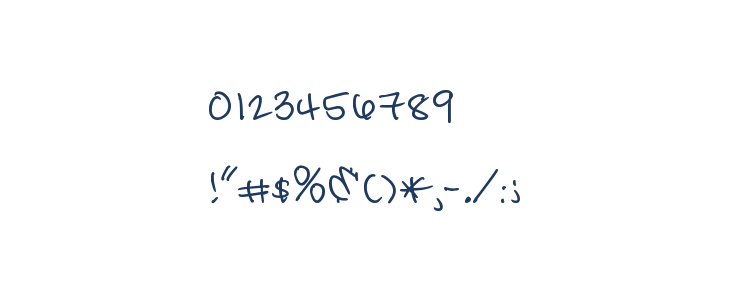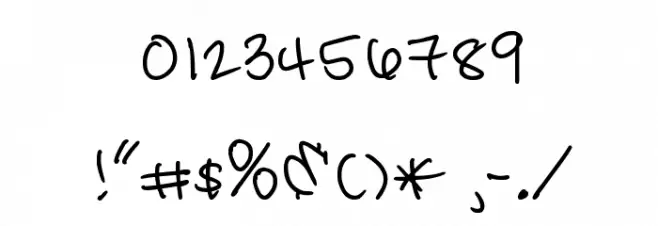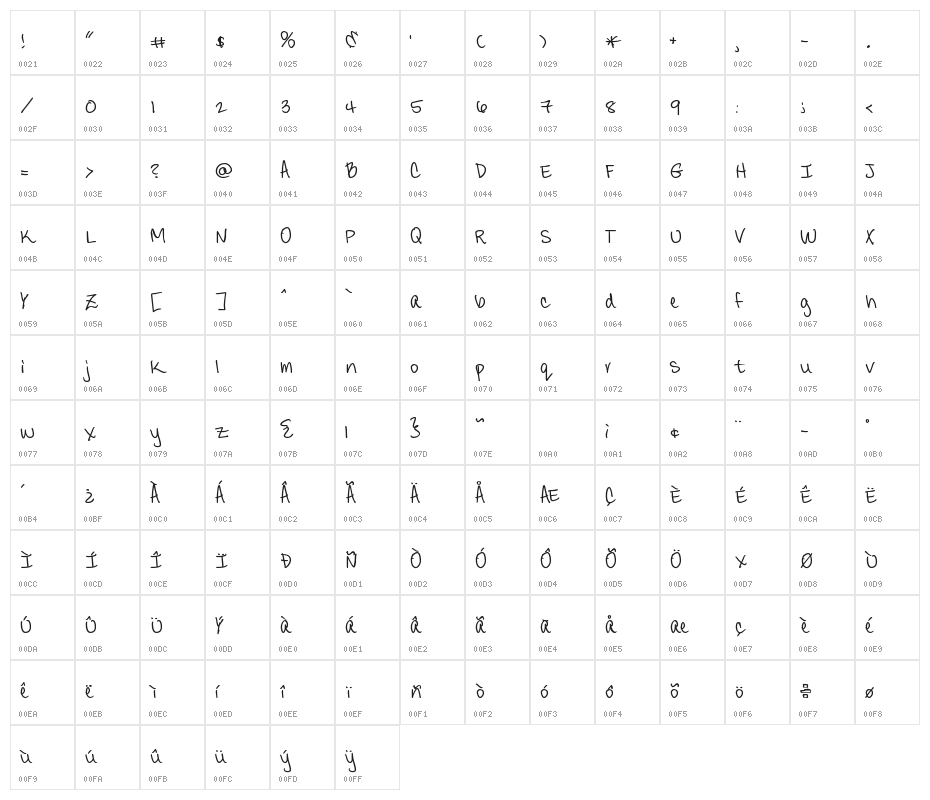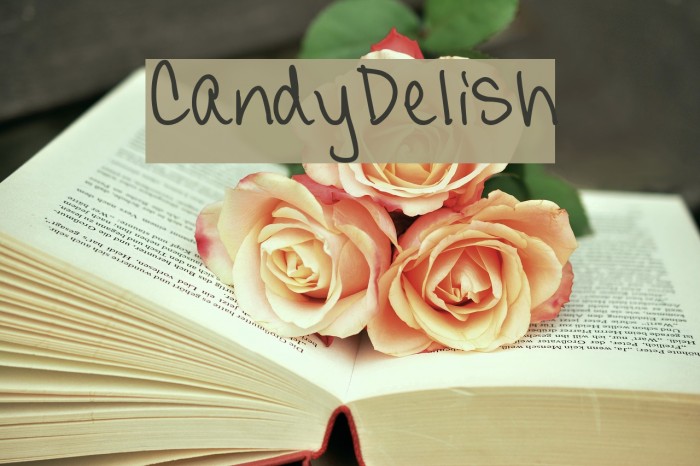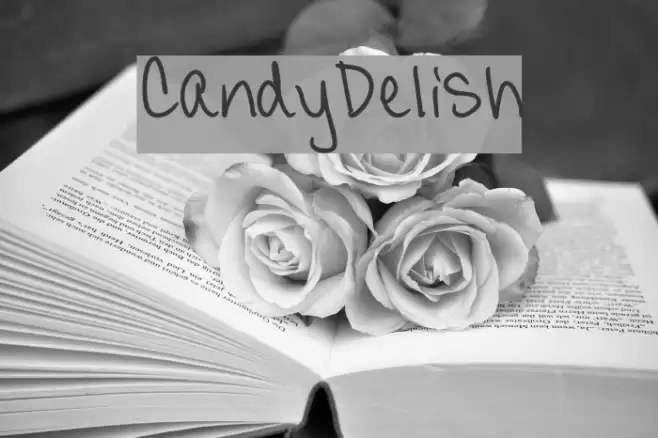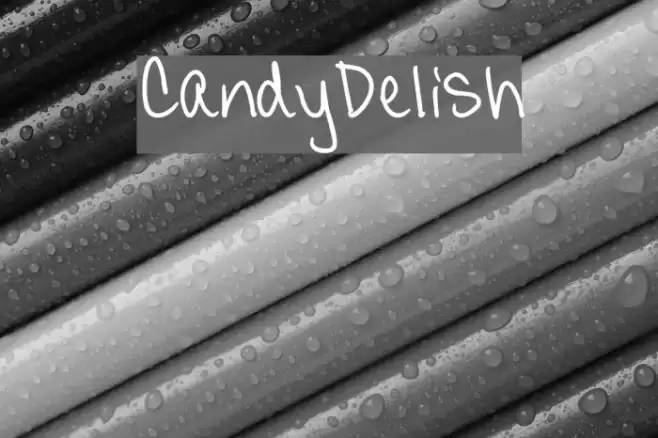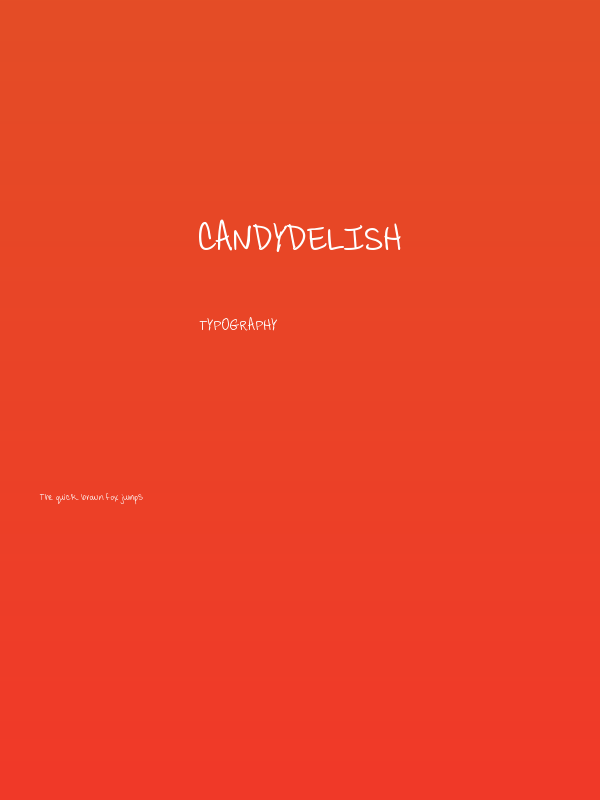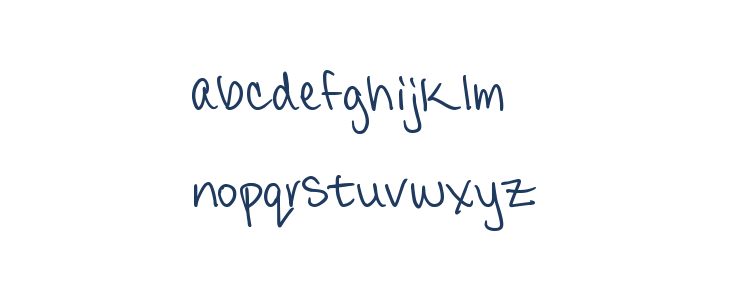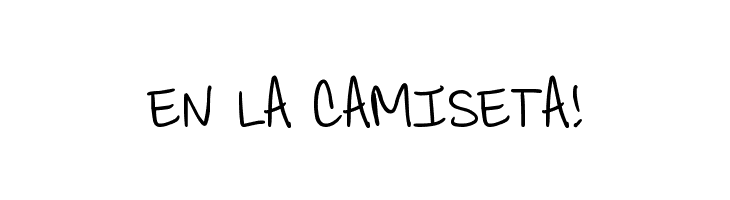
CandyDelish Font
CandyDelish Description
This playful and casual font features a handwritten style with a friendly and approachable appearance. The characters are slightly irregular, adding a personal touch that mimics natural handwriting. The strokes are smooth and flowing, with a consistent medium weight that maintains readability. The font includes both uppercase and lowercase letters, numerals, and a variety of special characters, making it versatile for various uses. Its informal style is perfect for projects that require a warm and inviting feel.
| Proposed Projects | Ideal for greeting cards, personal invitations, children's books, and casual branding projects. |